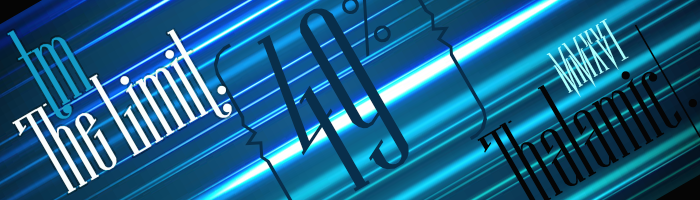
Apparently, it is quite easy to forget what gets a fontstruction going. Something about ultra condensed bla bla bla. The rest is just a matter of having a creative activity to occupy the mind. And if in the process you can help out a friend, all the better.
Wow! Really like the lightning shapes of A, V, W. And your Q is quite quaint! Also your numerals (especially 2, 3, 4 and 7) are looking sharp!
Is there any reason your l is extra tall, and your other ascenders (b, d, f, h, k) are at t-height?
Thanks, CMunk. The l is extra tall because it just looked nicer that way. The t should be shorter though. If these fonts were designed for being used, the characters would be more restrained. As it is, every character is however it wants to be rather than how it should be. Aesthetic whim is as close as I can come to defending the shape choices. :-)
The zid-zag AVW were forced into those shapes to keep the ultra condensed nature of the whole cohesive. I'm glad the Z worked out with the steepest angle brick possible. Otherwise it migh have required a jog in it somewhere as well. Come to think of it, maybe a jogged Z should be included as an alternate anyway.
Brave new shapes and forms. 10/10
Nice, nice, nice fontsruction !
I love this. The usability factor is great, the quirky Q, W, V are great, the ampersand is great, just amazing work. 10/10+fav
How many risk solutions and how great results here, master!
Awesome work! I especially like the Q.
Should the F be flipped, or is it on purpose?
Thanks, Yautja. The F is flipped on purpose as the special element of the font is its verticality. A regular F would have left too much gap between it and the next letter. I figured an uppercase F is most likely to be used at the beginning of a word anyway and unlikely to be preceeded by another...so might as well have it sit well with the next character. But just to be safe, I'll add another forward-facing F somewhere.
A refreshing take on classic glyphs!
Wow. So striking and unusual, the TP is well earned.
Awesome. Very striking, very original, very creative.
Spiky!
this is great work
I love this deconstruction, verry leggible
the VWX NM A are such original
BRAVO
It's nice, but where's the capital U?